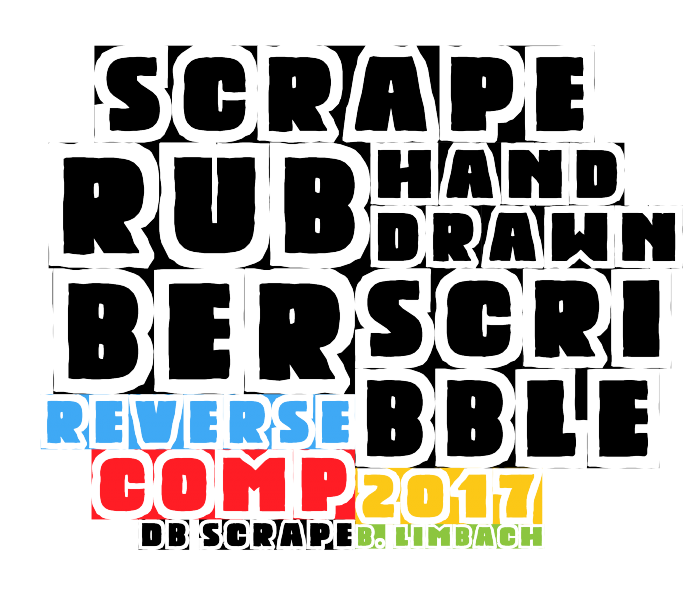
This has a strong hand-drawn look, it demands attention  but is very gentle and appealing.  Good luck :)
How is this possible?
What a beautiful sample, it is as if each letter was handprinted individually.
Fat sans serif letters appear like chalk on blackboard or handmade stencils. Great attention to details and superb demos. Spectacular entry. 10/10
Congratulations, the TP graces a well-made chunky font that reminds me of hand cut rubber stamps
WOW! Awesome font! How is this possible?
heart symbol on the heart glyph...